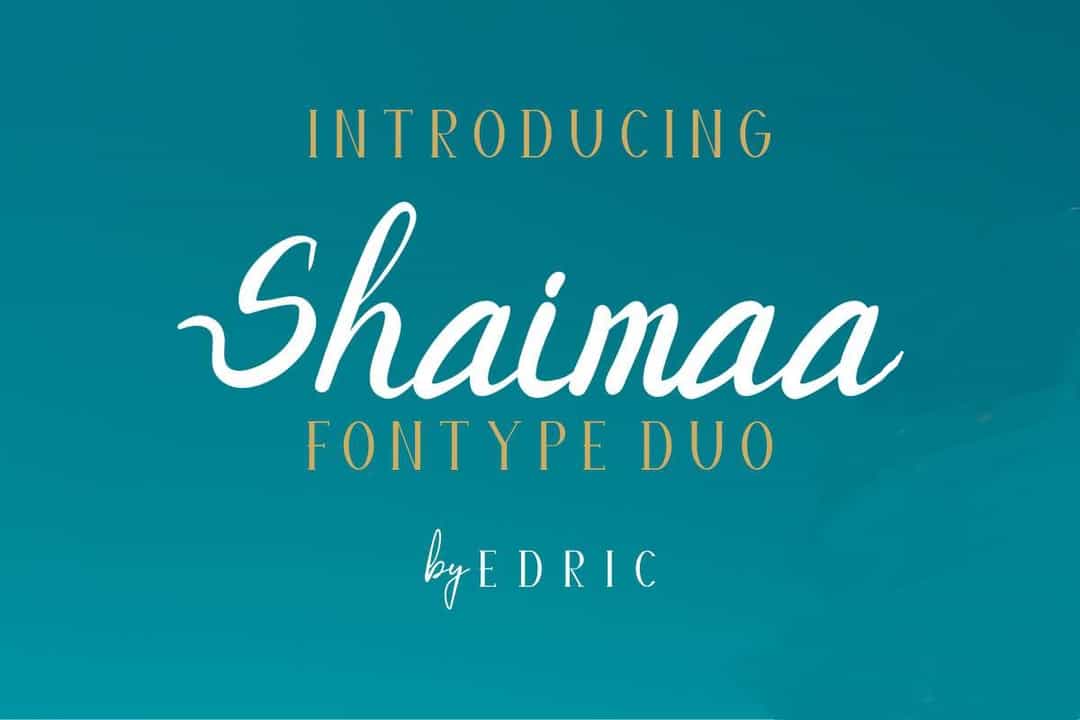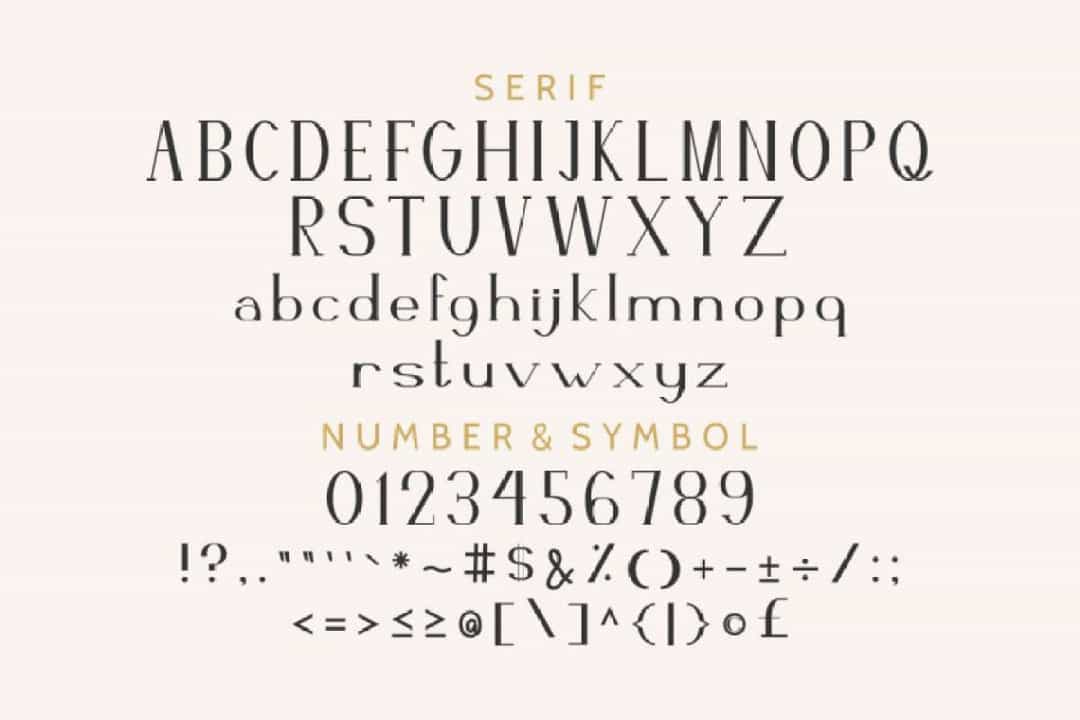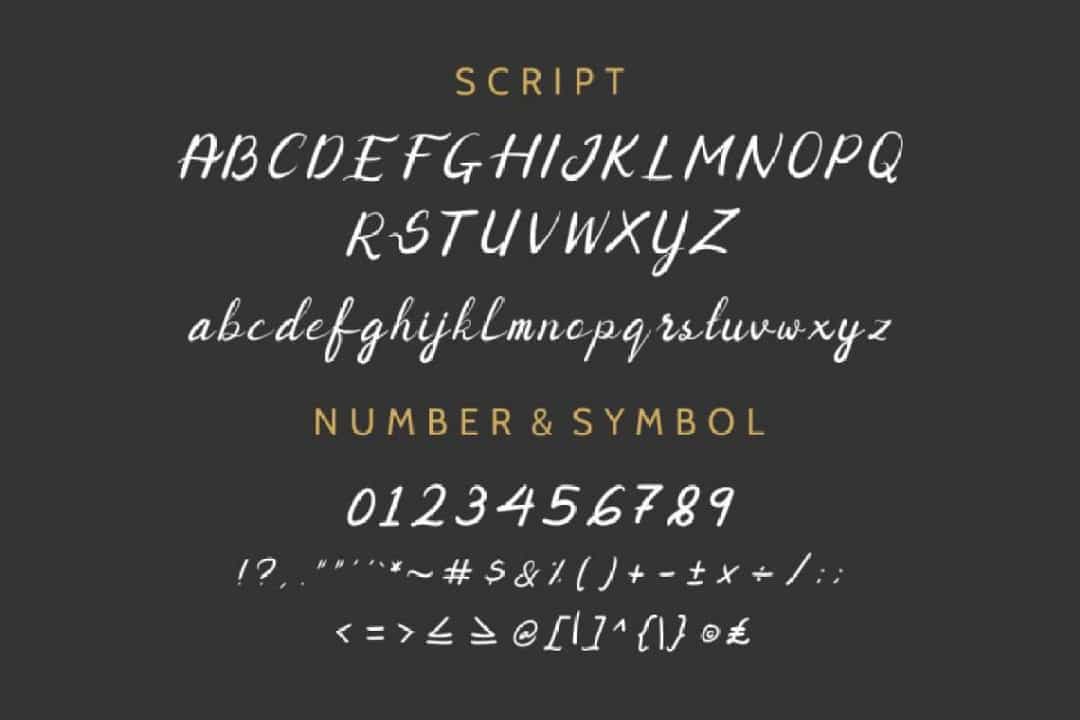
Discover Shaimaa Font Duo, part of the Handwritten Serif collection—a versatile and unique font perfect for adding a personal touch to your projects. Download it for free and enjoy crafting designs with style, from invitations to social media posts. This font is available exclusively for personal use, giving you the freedom to create without limits. Unlock your creativity with Shaimaa Font Duo today!
Shaimaa Font! This is a font duo : Serif and script type. Great for branding, logo, stationery, business card, signage, flyer, brochure etc. There are many industries that is suitable for this font : construction, real estate, services, law firm, wedding, makeup artist, photographer, clothing and so on.